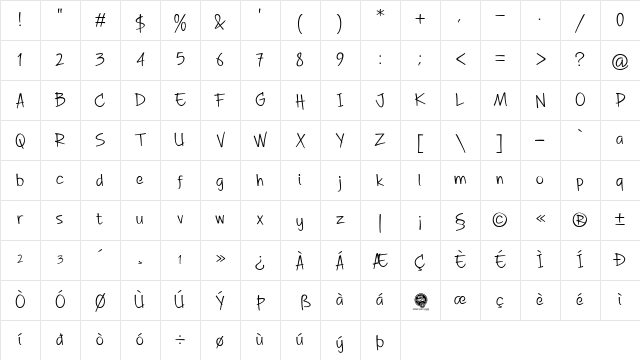
Complete DHF A Great Happiness Regular glyph index. Displaying only characters natively supported by DHF A Great Happiness Regular font.
DHF A Great Happiness is a composed and adaptable typeface that performs quietly and consistently across a wide range of design contexts.
Who designed the DHF A Great Happiness Regular font?
This font was published by Dexsar Harry Fonts (DHF). Check the technical specs section for copyright and designer details.